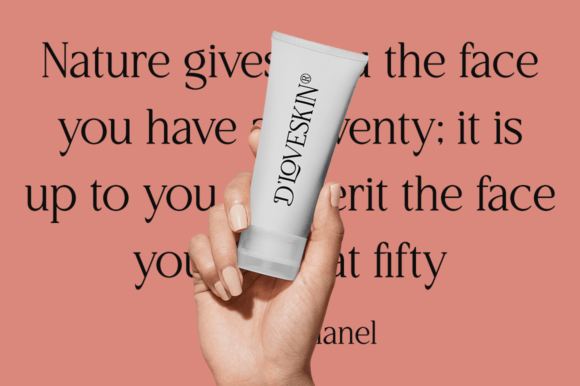
Welcome to Lettering Font
Welcome to Lettering is an elegant and distinct serif font. Suitable for a wide variety of designs due to its neat and simple style, this font has the potential to become your favorite go-to font, no matter the occasion!